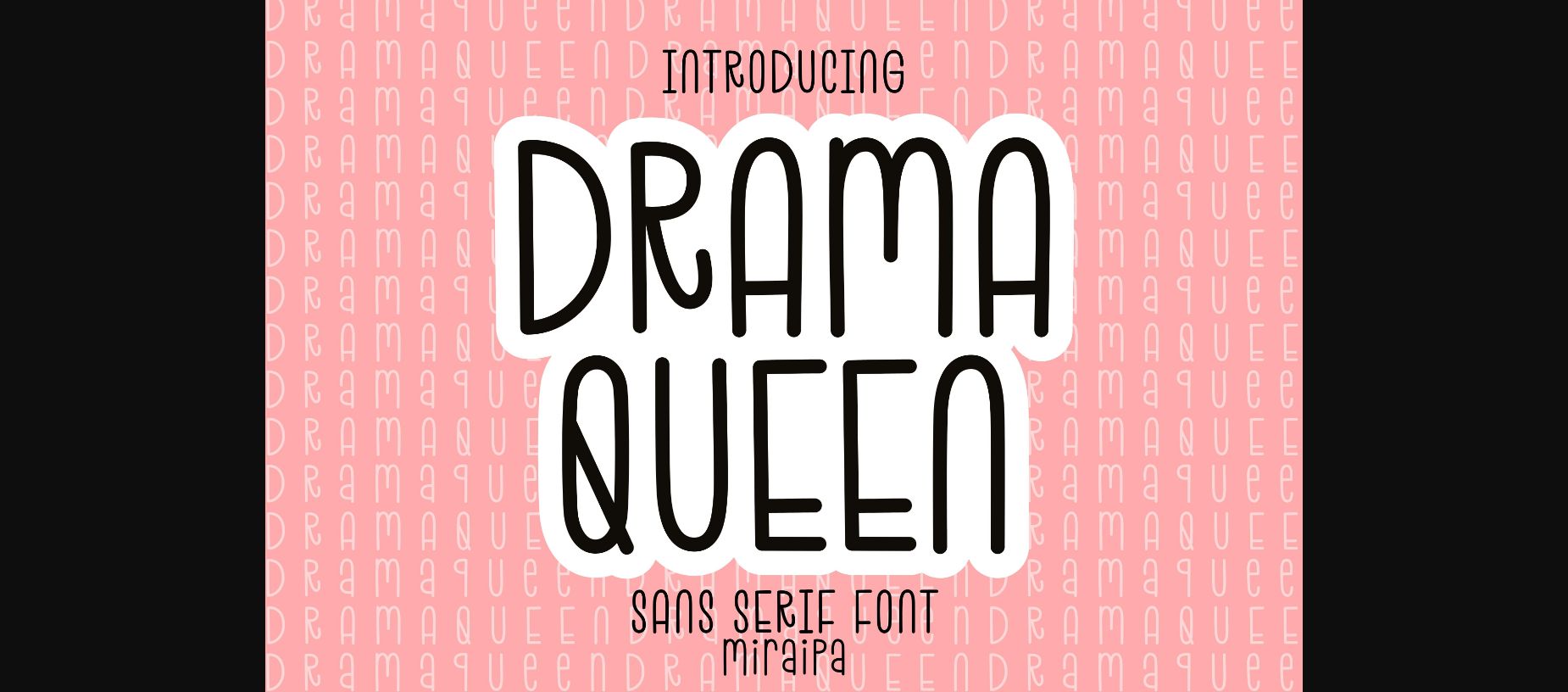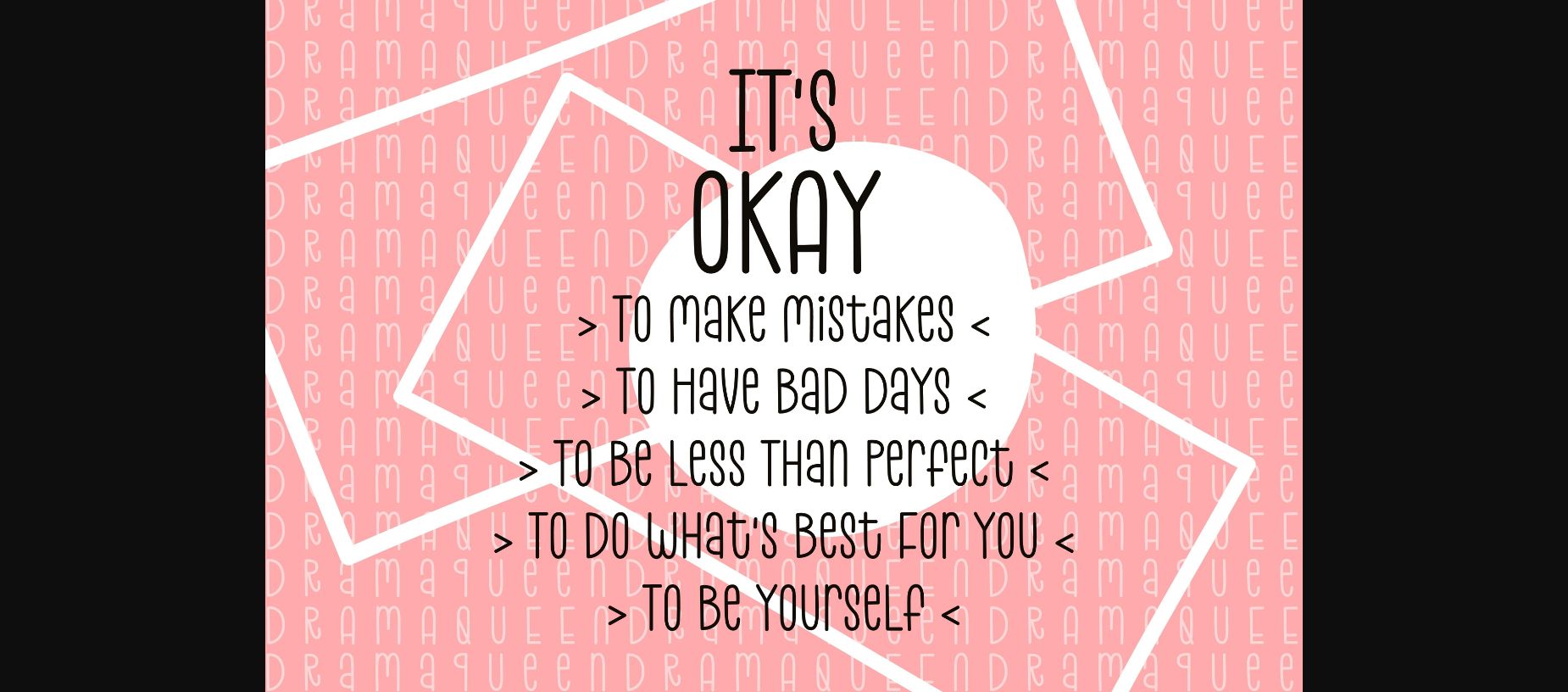
About Drama Queen Font
Drama Queen is designed in a cute and friendly handwritten sans serif font style. It would be awesome to your fun projects or diary planner. Add it to your projects such as Easter, back to school, wedding, party decoration, invitations, Fall, Halloween, Christmas, posters, blogs, clothing, child-related designs, greeting cards, social media posts or anything that needs a friendly touch.